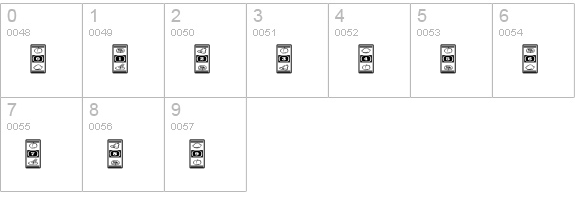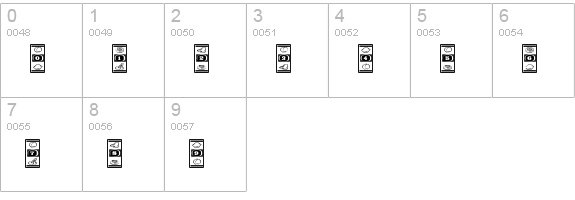
LuckyApe Font Details
LuckyApe font is a whimsical and playful typeface that exudes charm and character. With its rounded edges and quirky details, this font is perfect for adding a touch of fun to your designs. Whether you're working on a children's book, a greeting card, or a branding project, LuckyApe font will bring a sense of joy and creativity to your work. And the best part? LuckyApe font is completely free to download at FontsMarket.com. So go ahead and unleash your creativity with this delightful font that is sure to make your projects stand out.